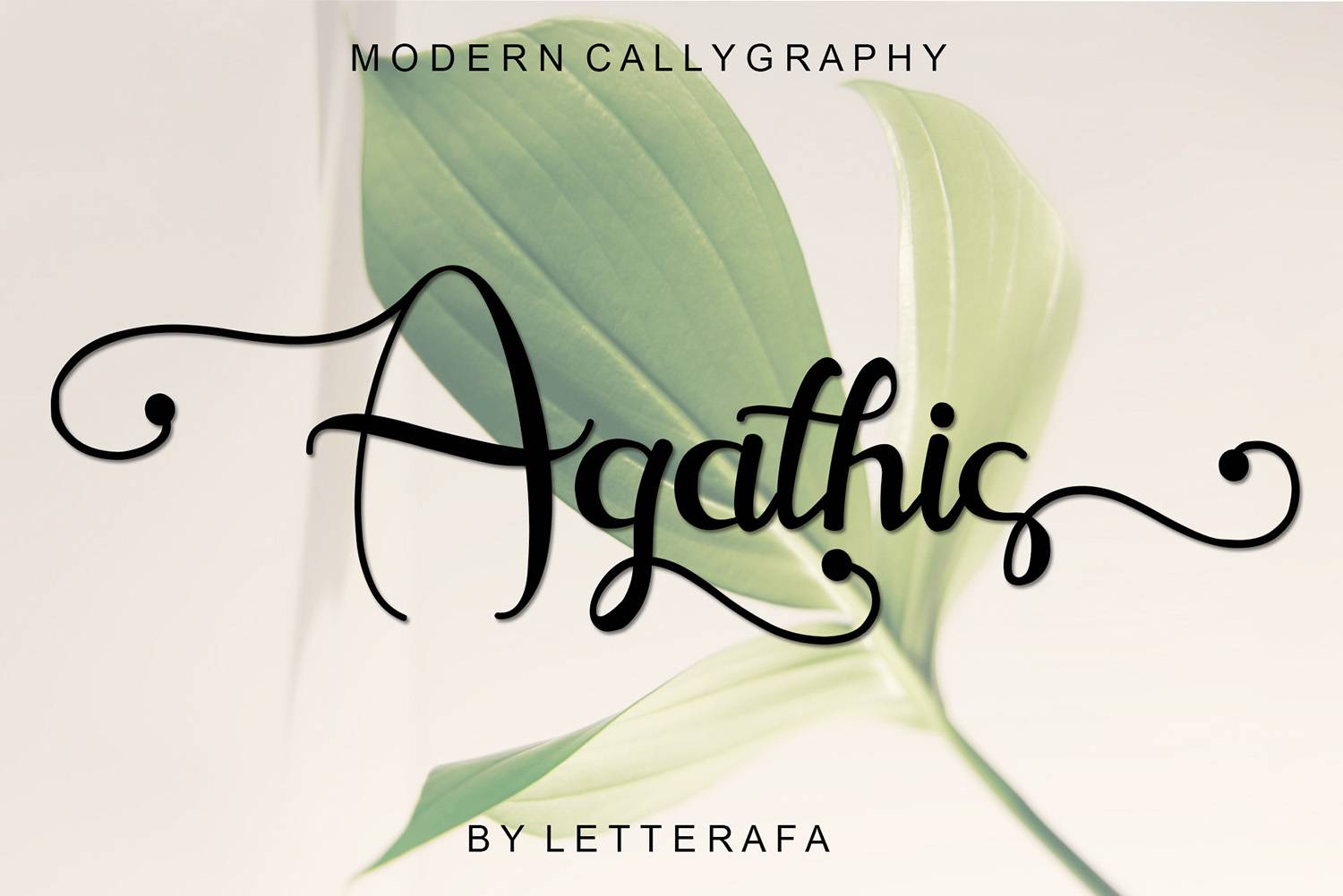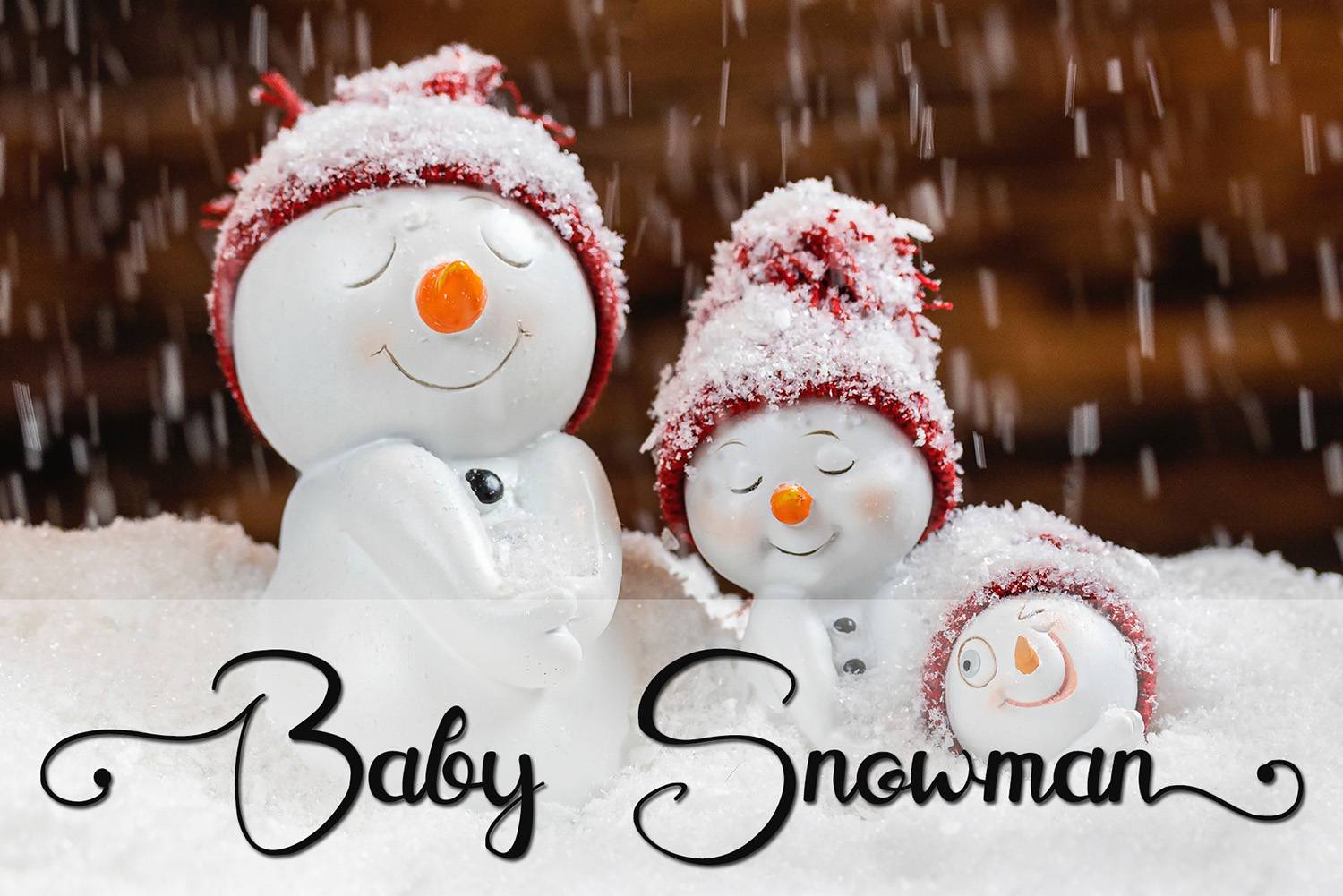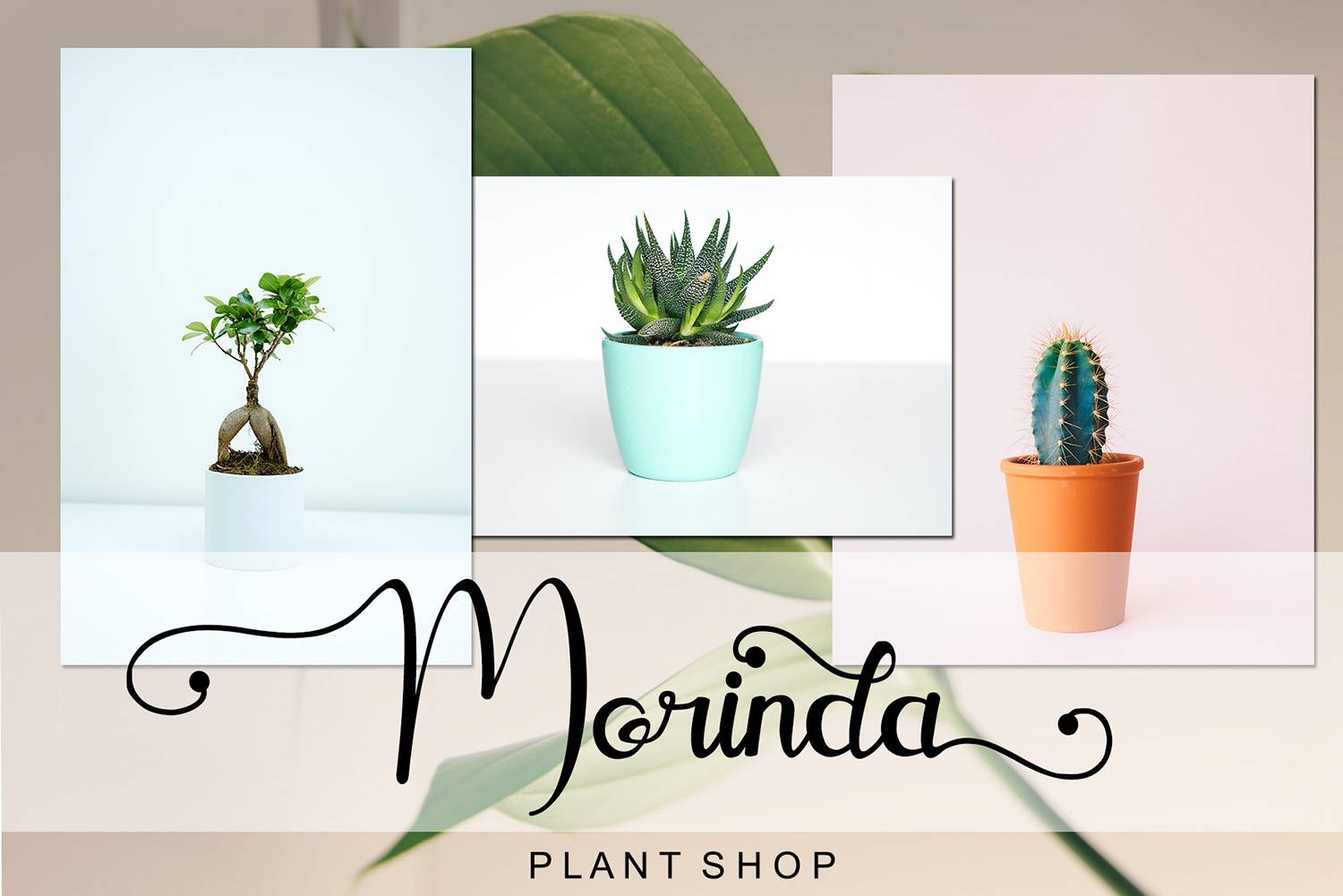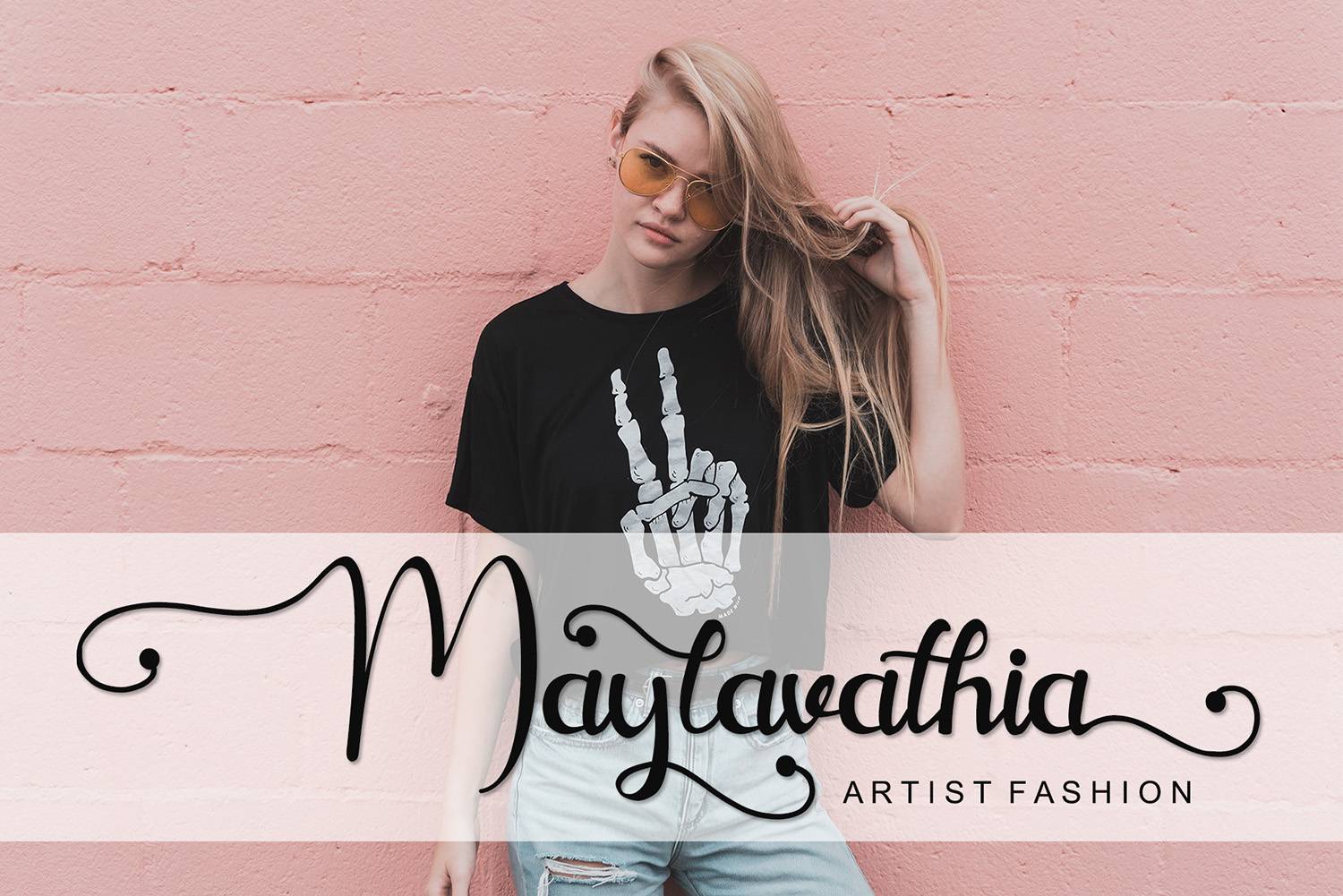
Agathis is a delicate, handwritten script font with a whimsical and artistic flair, featuring slender, flowing strokes and charmingly intricate letterforms. Its light weight and graceful curves give it a playful yet elegant personality, making it ideal for personal projects, creative branding, and invitations where a touch of unique, handcrafted style is desired. This font works best in decorative uses and headlines where its distinctive character can shine without sacrificing readability.
Agathis Font
About Agathis Font
| Font family | Agathis Font |
| Designer | Ahmad Afandi |
| Trademark | Letterafa |